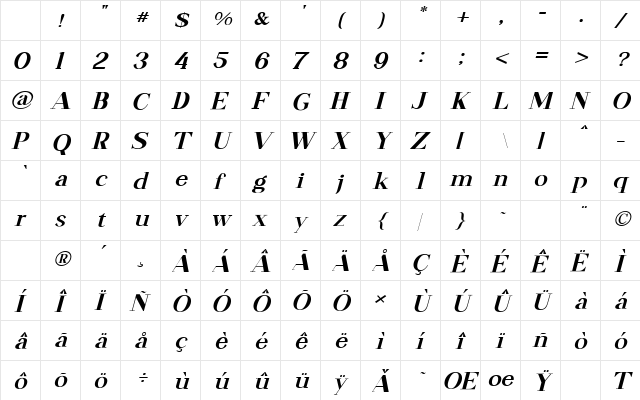
Complete RAINY DAY Italic glyph index. Displaying only characters natively supported by RAINY DAY Italic font.
RAINY DAY is a composed and adaptable typeface that performs quietly and consistently across a wide range of design contexts. The slanted form adds forward momentum and visual energy.
Pro Tip: Use RAINY DAY for emphasis, pull quotes, and subheadings where its slanted energy can add rhythm to the layout.